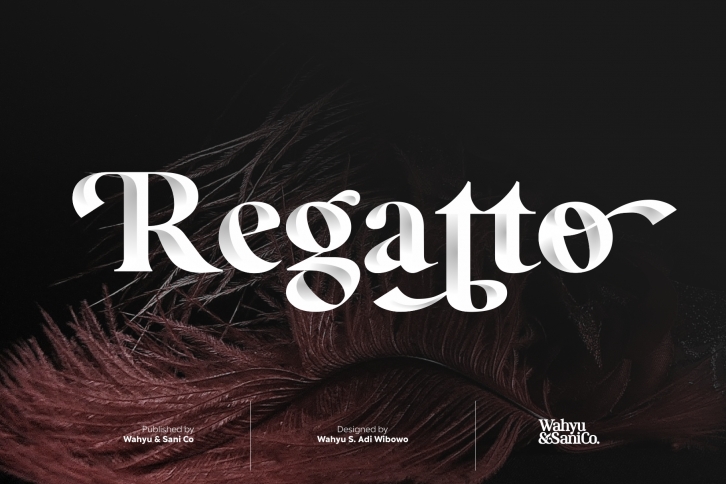
Regatto | Venetian Style Font Download
Regatto | Venetian Style Font Font Download
Regatto is a great font that was designed by Sani Sanjaya. Imagine the amount of combinations you can create using this font! The archive is 7.7 MB and it was released on August 28, 2019. Regatto looks beautiful on wedding invitations, greeting cards, logos, posters, labels, t-shirt designs, logos, business cards and is perfect for use in ink or watercolor works, fashion, magazines, packaging and food menus, children's books and more!